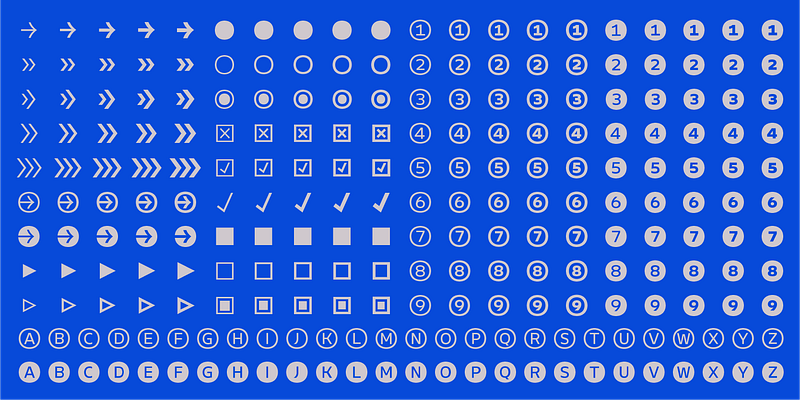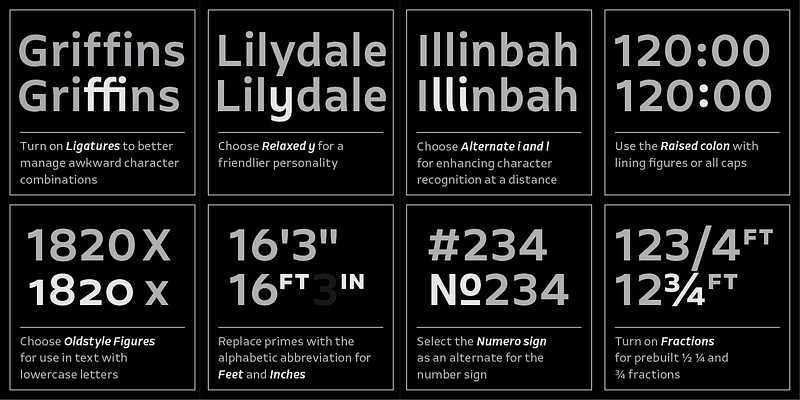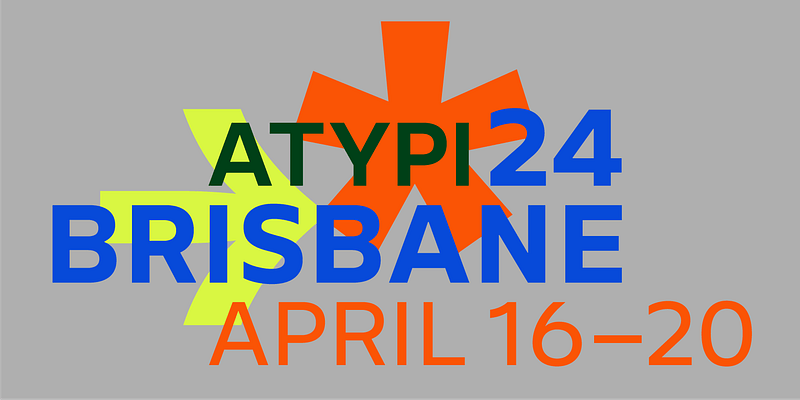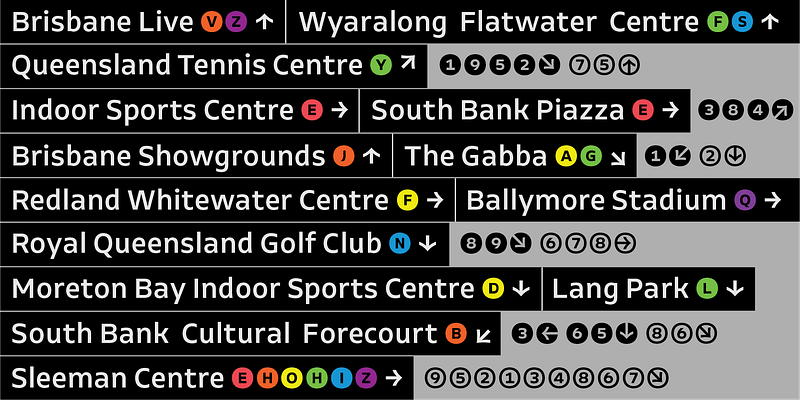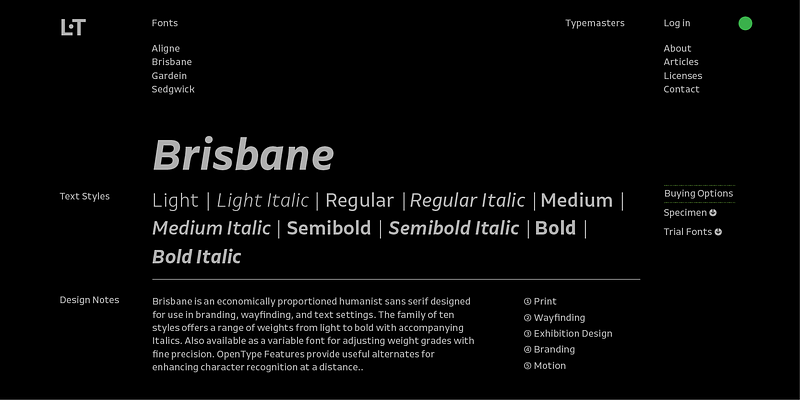
Brisbane is an economically proportioned humanist sans serif designed for use in text settings. The family of ten styles offers a range of weights from light to bold with accompanying Italics. OpenType Features provide useful alternates for enhancing character recognition at a distance and a selection of orientation and location devices.
Brisbane’s design was inspired by the capital city of Queensland, Australia. Over the last decade, the city has transformed from a large country town to a contemporary metropolis, and it is now positioned to share its talent and beauty with an international audience at the Olympic Games of 2032.
Brisbane was designed by Troy Leinster © 2012.